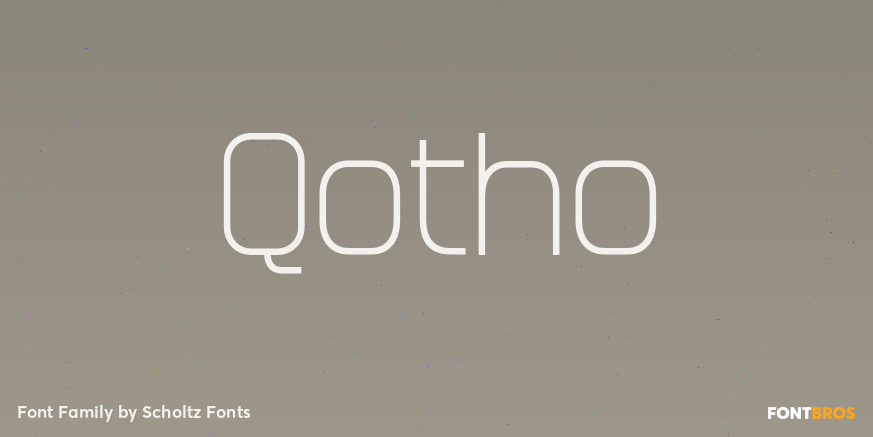
Qotho
About Qotho
Qotho is a clean, geometric sans serif font, available in five weights. Qotho Dark, Qotho Medium, Qotho Light and Qotho Thin also come in two widths, regular and Cond. Clear and versatile, Qotho is designed for magazine pages, newspapers etc. Its large…